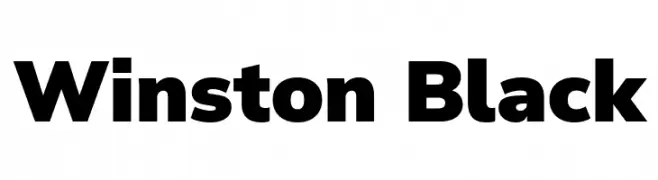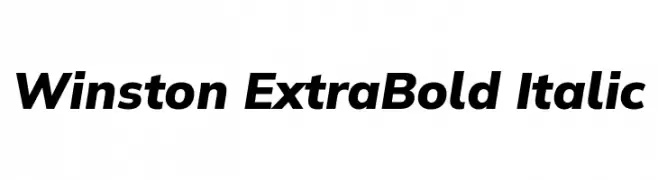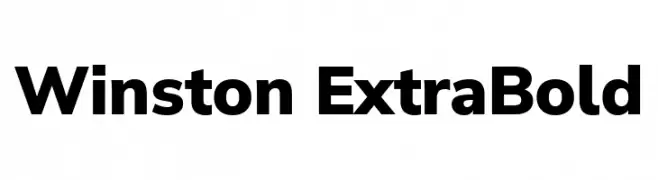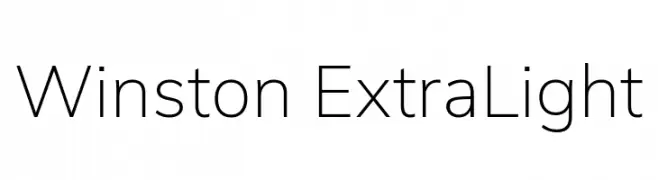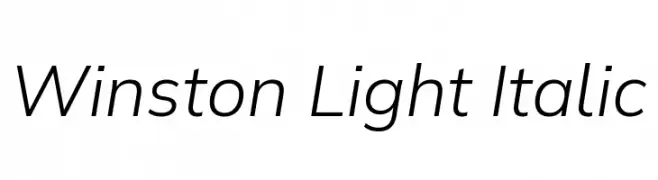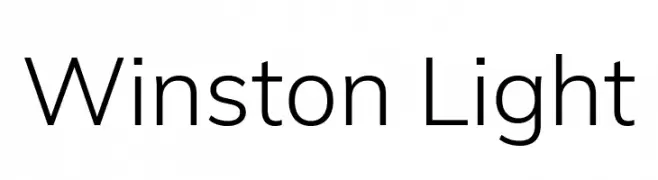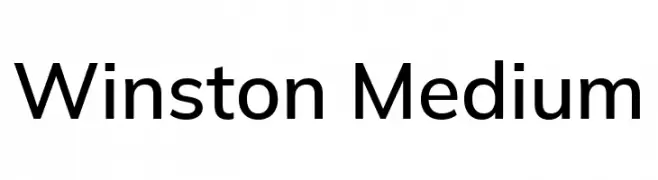
A bold, modern sans-serif font with strong lines and uniform stroke width.
A bold, italic font with a dynamic and modern style.
A clean, modern, and extra light font perfect for minimalist designs.
A bold, italic typeface with a modern and dynamic style.
A bold, modern font with clean lines and excellent readability.
A bold, modern font with strong, uniform characters.
A modern, clean sans-serif font with uniform stroke width and excellent readability.
A sleek, semi-bold italic font with a modern and elegant design.
A sleek, light, and italic font with a modern and elegant style.
A modern, sans-serif typeface with clean lines and a balanced appearance.